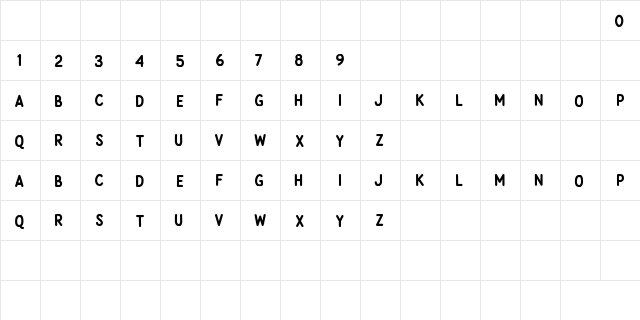
Rocky Stone Regular
| Designer | Malik Wisnu |
Design Context for Rocky Stone Typeface
Rocky Stone is a composed and adaptable typeface that performs quietly and consistently across a wide range of design contexts.